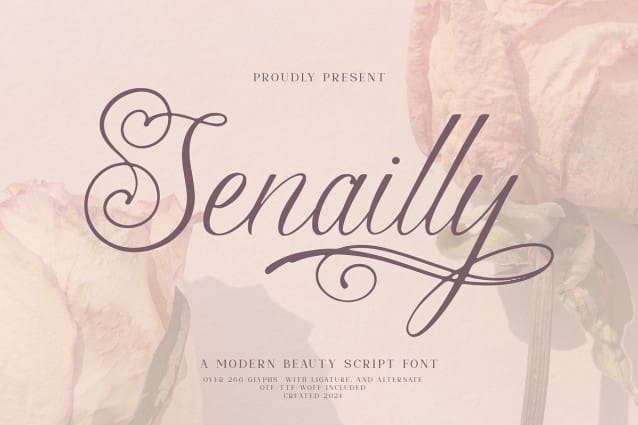
Senailly Font
Senailly Font | Modern Beauty Script, from Denustudios, suitable for any projects such as: logos, branding projects, homeware designs, product packaging, mugs, quotes, posters, shopping bags, t-shirts, book covers, name card, invitation cards, greeting cards, label, photography, watermark, special events, and all your other lovely projects that need a Modern Beauty Script taste.